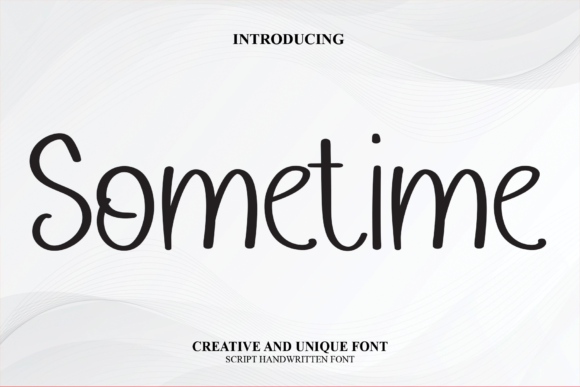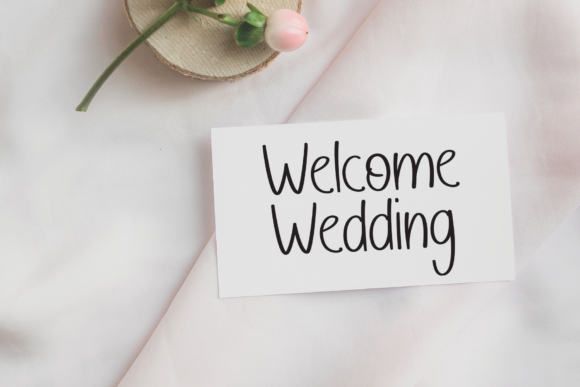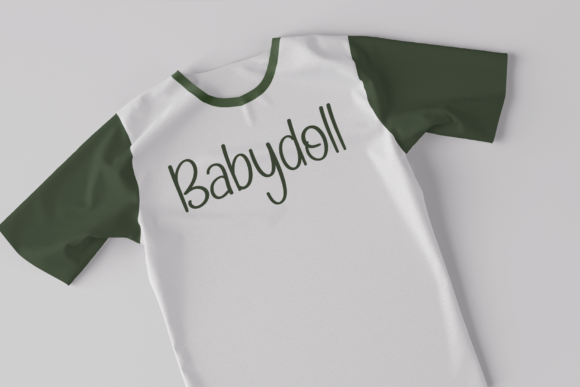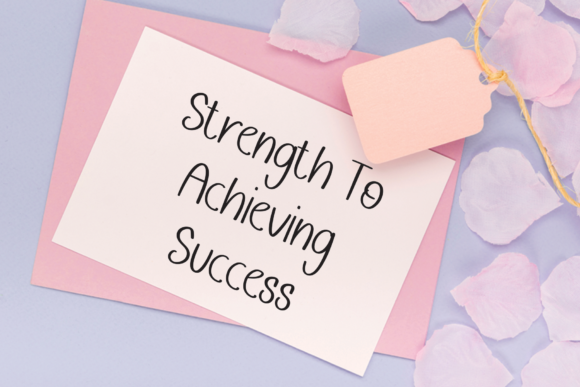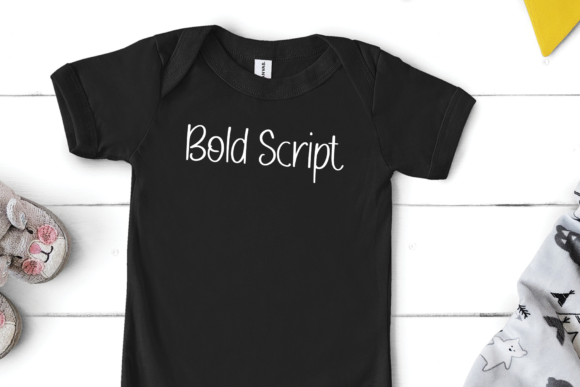
Sometime Font
About Sometime Font
Indulge in the allure of a script font that effortlessly embodies sweetness, whimsy, fluidity, and delicate thinness. With characters gracefully engaged in a captivating dance along a baseline, this font promises to infuse a generous dose of luxury into any design project you embark upon!
This script font is a visual confection, evoking sweetness through a charming and graceful dance of characters. Each letter moves seamlessly along the baseline, creating a rhythmic visual spectacle that is both enchanting and playful. The fluid strokes contribute to the font’s overall elegance, making it an impeccable choice for projects that demand a perfect harmony of sophistication and fanciful charm.
Envision the impact of this script font on a wedding invitation, where the letters elegantly twirl and pirouette, setting the tone for a celebration filled with grace and charm. Picture it gracing high-end product packaging, instantly elevating the visual appeal with an air of exclusivity and refined aesthetics that resonate with discerning consumers.
The font’s thin and delicate lines further enhance its visual appeal, ensuring a lightweight and versatile quality. Whether applied to branding, logos, or editorial design, its enchanting characteristics remain prominent, offering a seamless and delightful reading experience across various mediums, be it digital or print.
This whimsical script font transcends conventional typography; it’s a visual symphony where characters come alive in a dance, making a bold and captivating statement in design communication. As technology and design progress, the timeless charm of this font endures, capable of infusing a touch of magic into a diverse range of creative projects.
In summary, this sweet, whimsical, fluid, and thin script font, with characters dancing along a baseline, is more than a typographic choice—it’s a design enchantment. As you embark on your creative journey, consider the opulent and sophisticated touch this font can bring to your projects, elevating them with a harmonious blend of visual appeal and aesthetic delight.